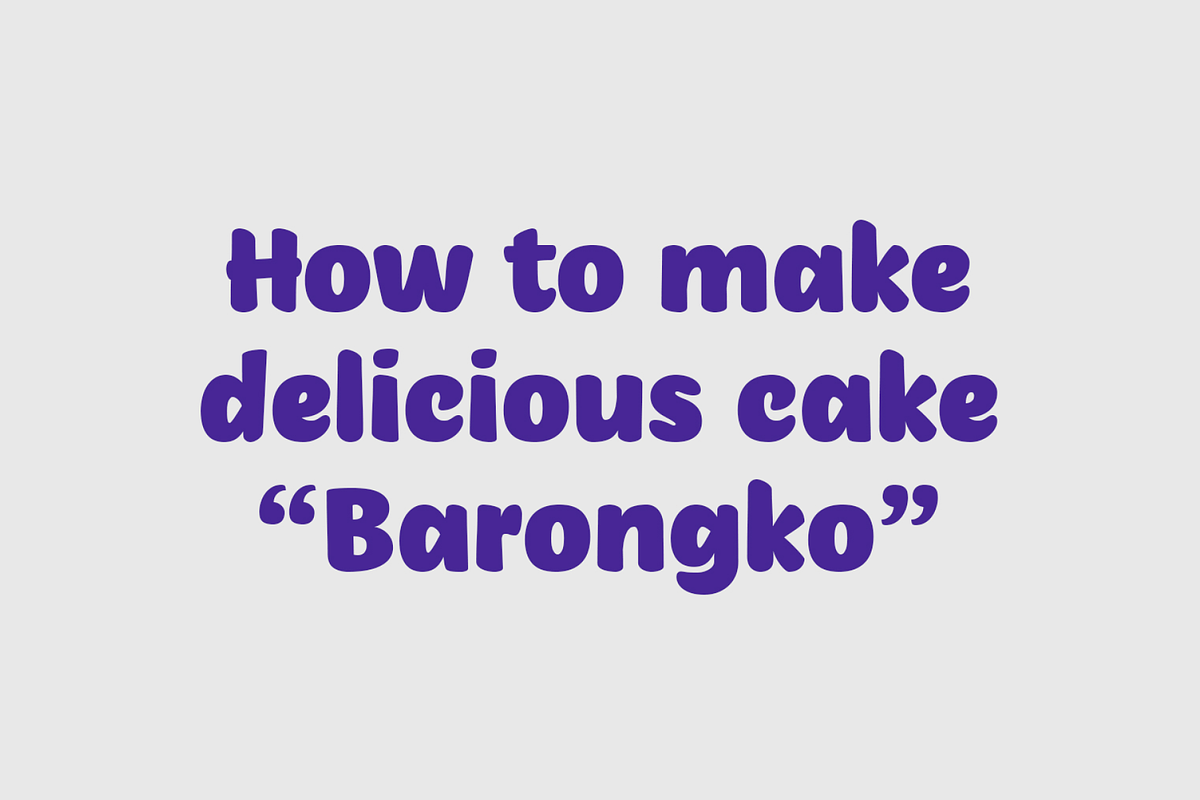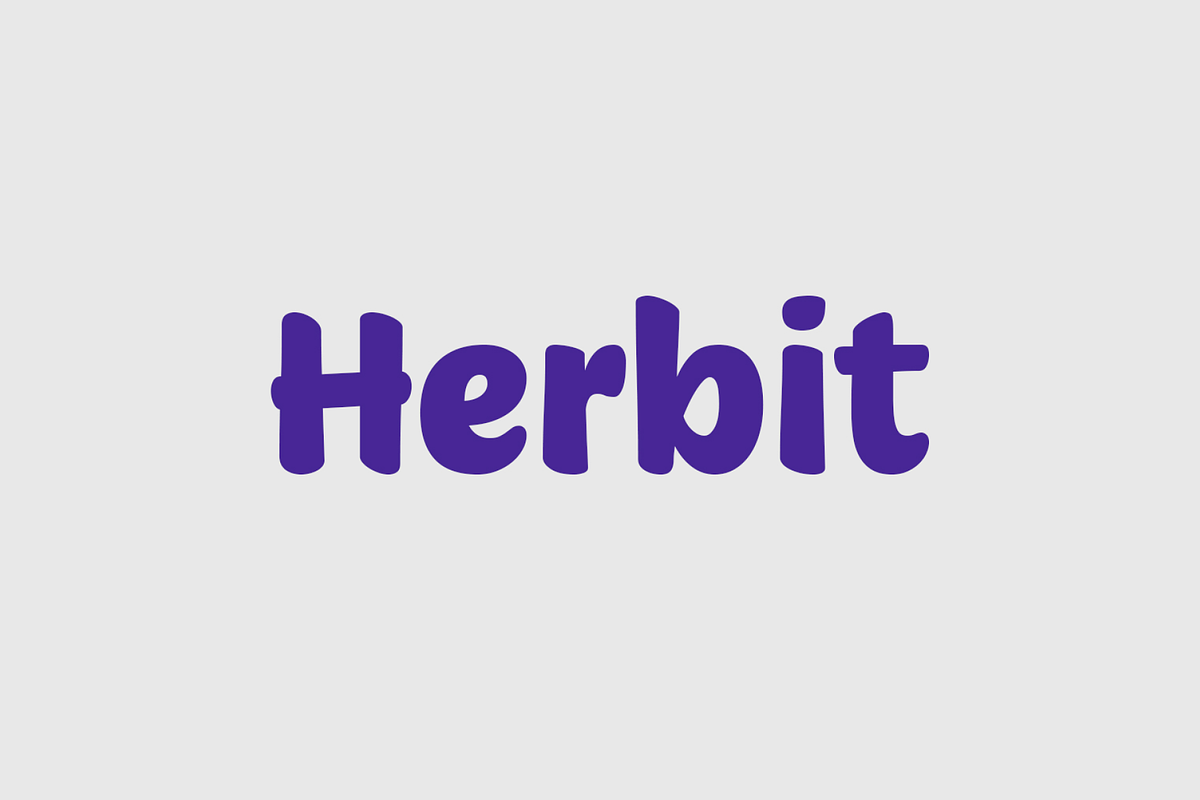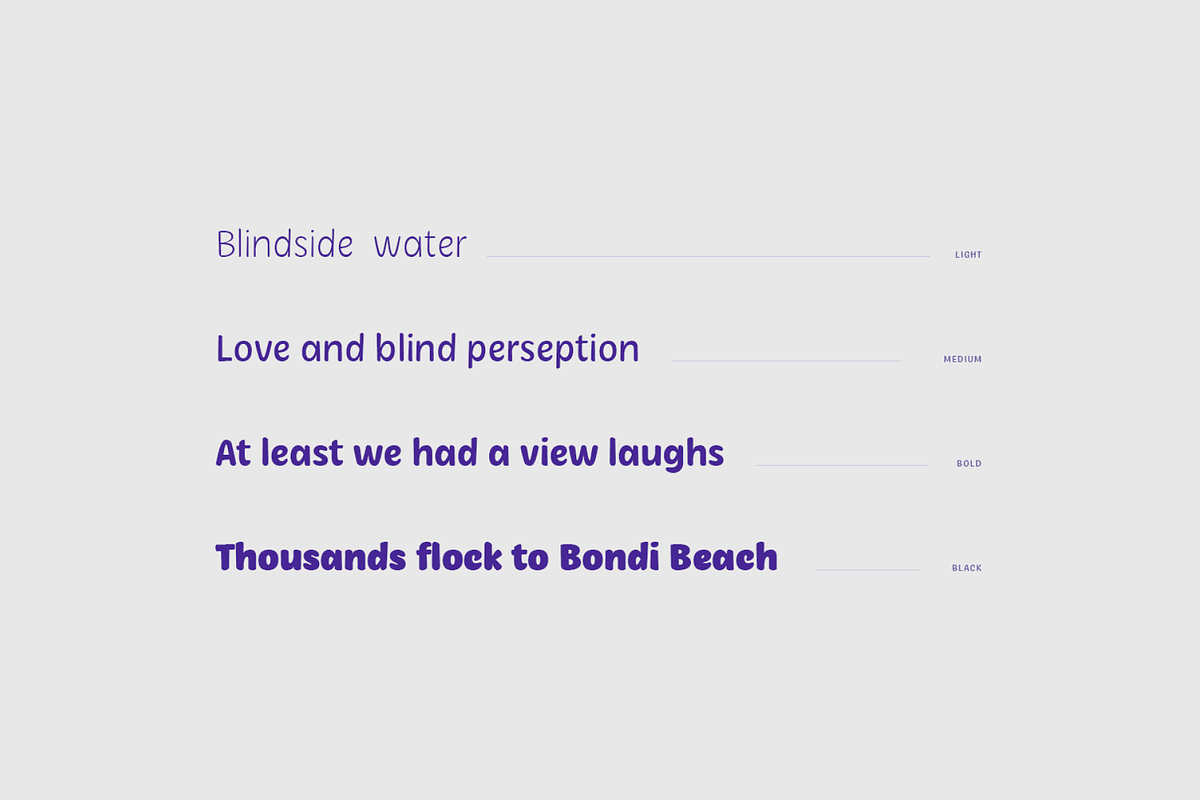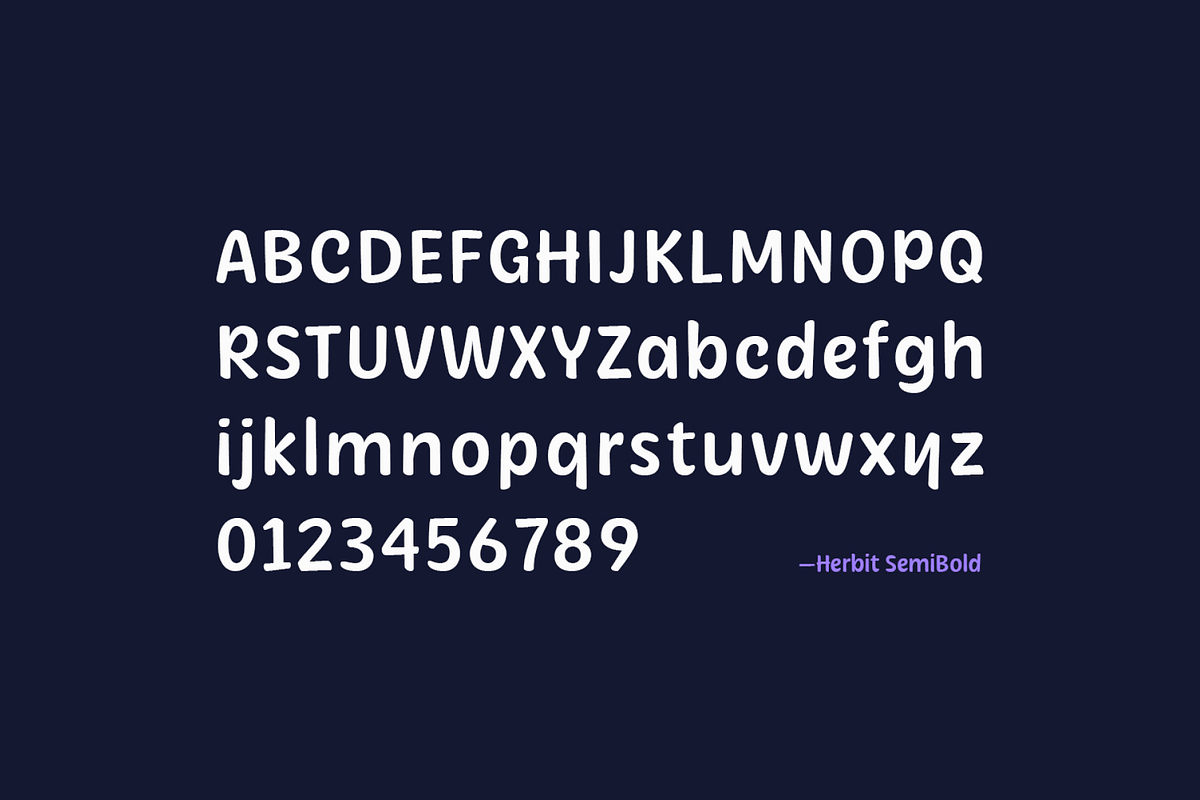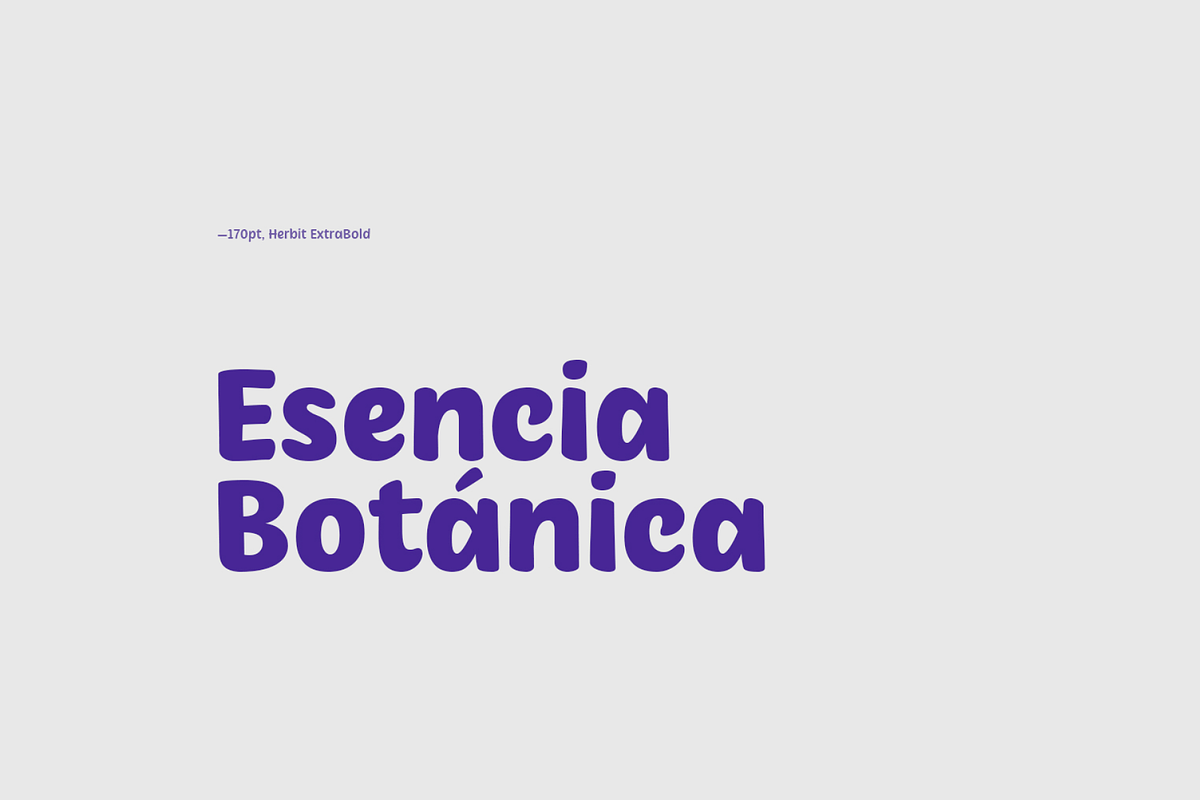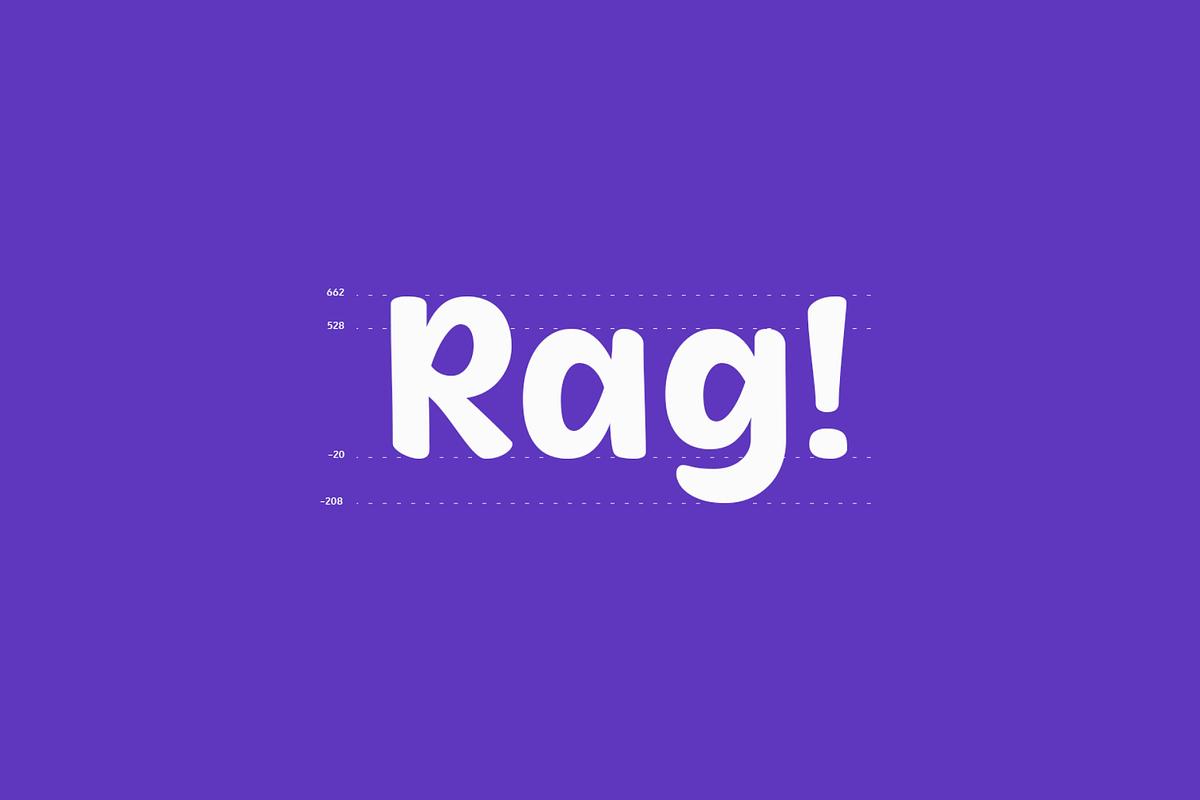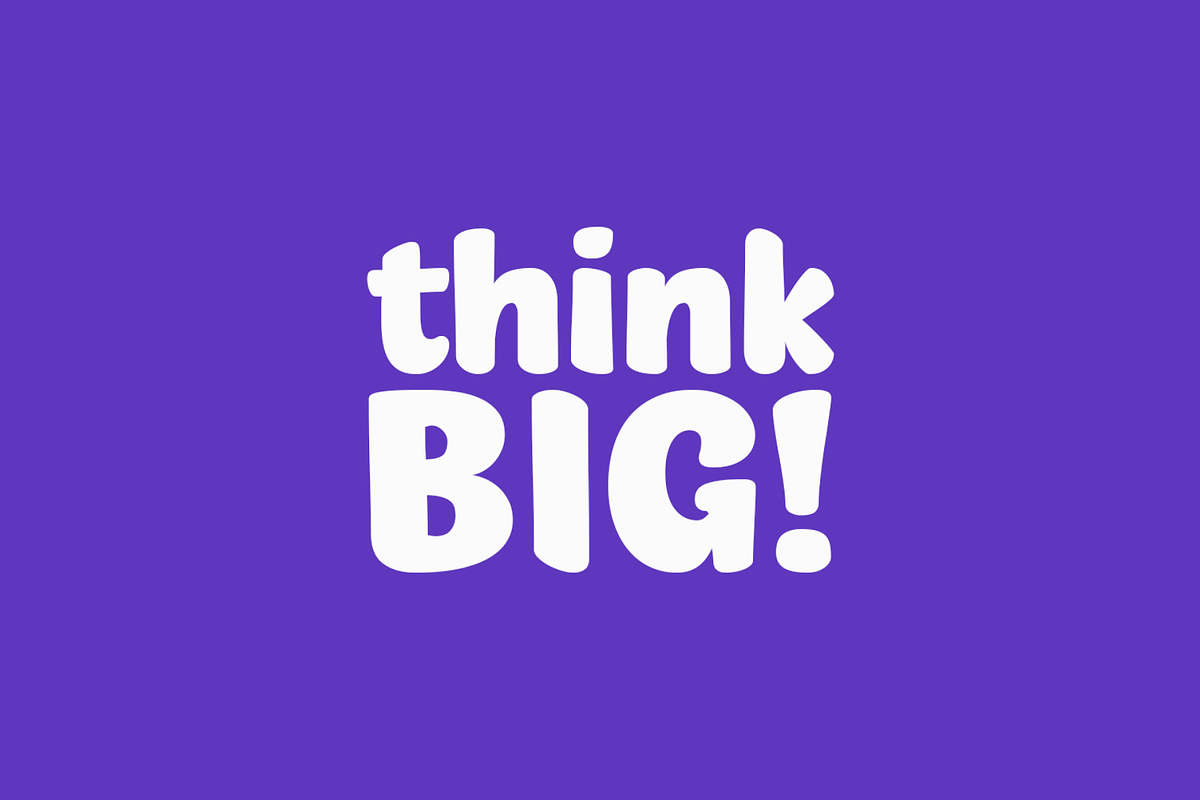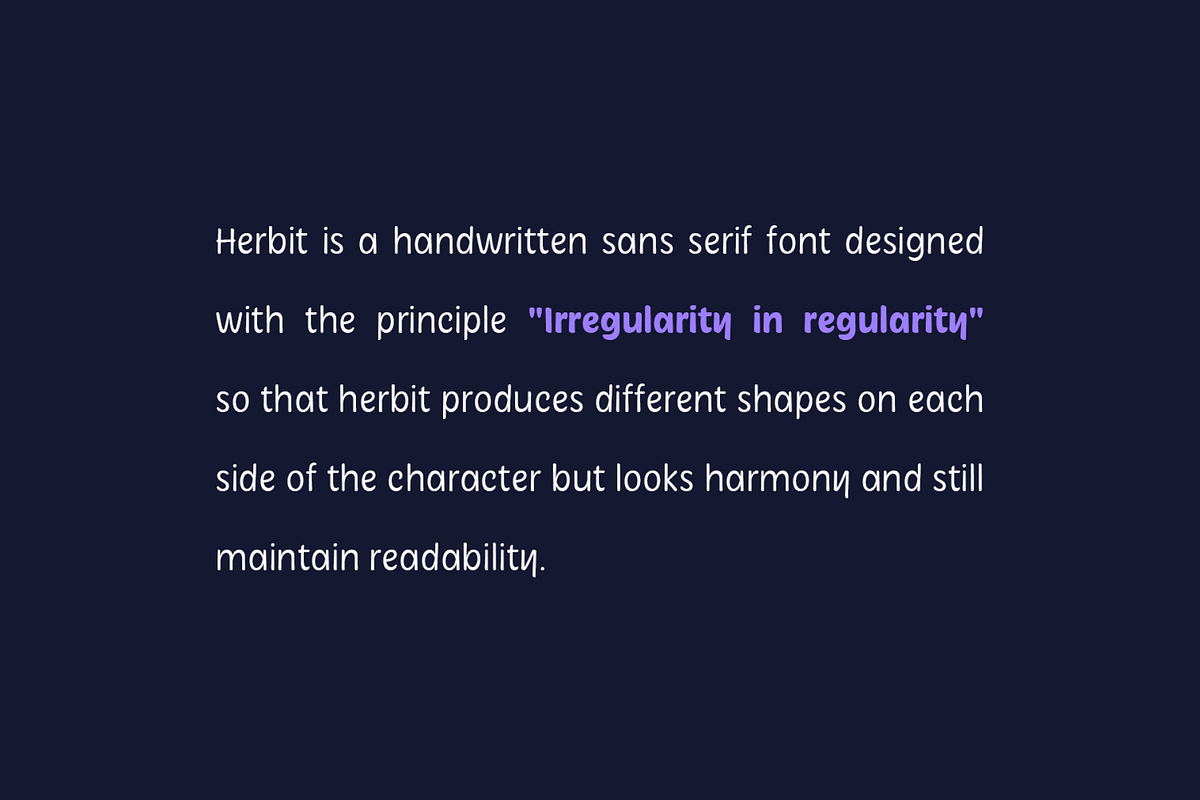
Herbit
Herbit is an innovative handwritten sans serif font meticulously crafted with the design principle of "Irregularity in regularity," resulting in distinct shapes on each side of the character while maintaining a harmonious aesthetic and ensuring optimal readability.
The font family encompasses seven weights ranging from Light to Black, offering comprehensive multilingual support. Herbit is exceptionally well-suited for a diverse array of applications including branding, logo creation, advertising, packaging design, editorial and publishing projects, as well as web and screen design endeavors.